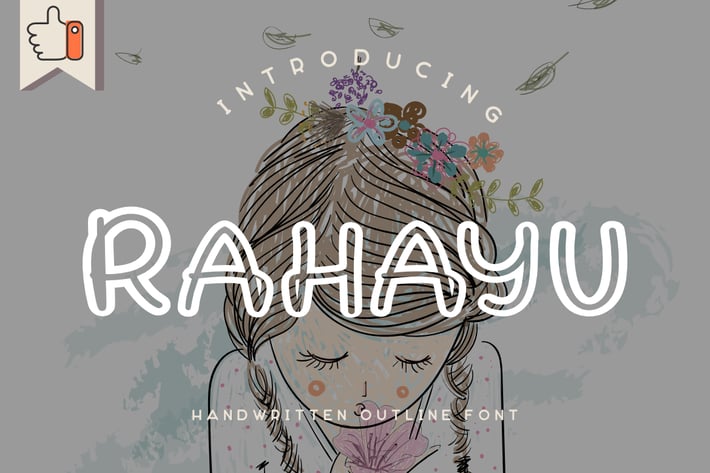
Rahayu | Handwritten Outline Font
Rahayu Handwritten Outline Font, This font is made with a high premium quality level which you can use as flyers, quotes, posters, banners, packaging, merchandise, logotypes and much more.